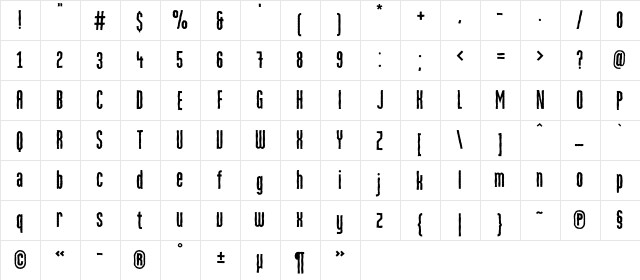
MartenRough-GrotesqueC Regular
Design Context for MartenRough-GrotesqueC Typeface
MartenRough-GrotesqueC embraces imperfection — its rough, textured character adds raw authenticity to designs that want to feel lived-in and unconventional.
A strong fit for alternative music projects, graffiti-adjacent design, and anything that deliberately resists polish.
Pro Tip: Use MartenRough-GrotesqueC at larger sizes where the texture and irregularity of each letterform can be clearly seen — it loses its character at small sizes.